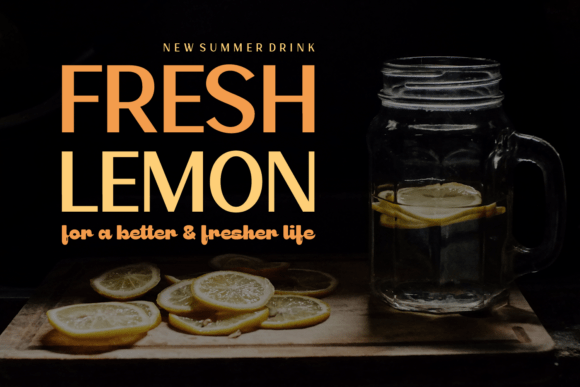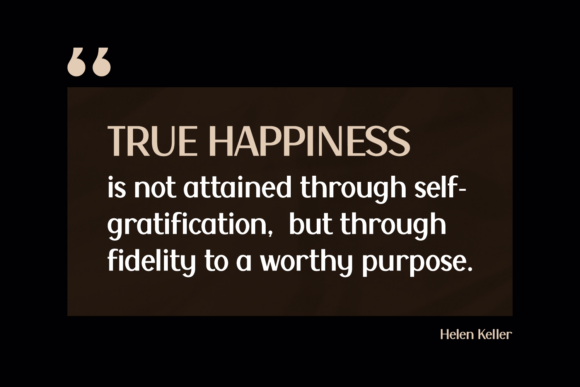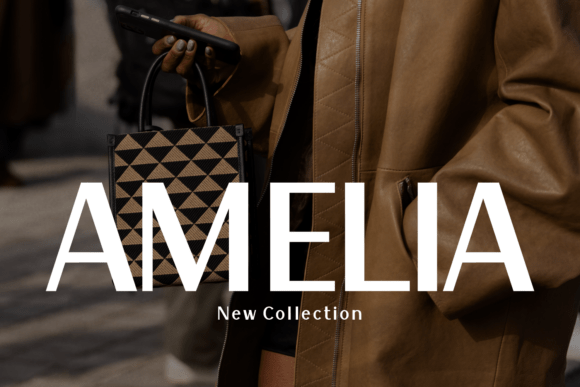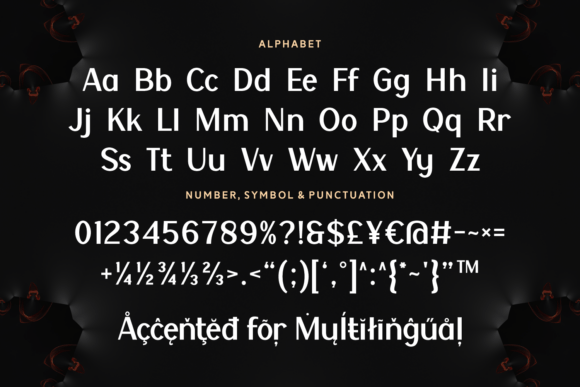
Introducing Chode Font: The Ultimate Sans Serif for Modern Design
In the world of typography, fonts play a crucial role in conveying messages, expressing emotions, and creating brand identities. For designers and crafters, finding the perfect font can be a daunting task, especially when it comes to creating visually appealing and effective designs. This is where Chode Font comes into play – a clean, modern, and versatile sans serif font that’s perfect for a wide range of applications, from branding to headlines.
A Promotional Image for “Chode”
Imagine a promotional image that showcases the beauty and simplicity of Chode Font. The image features the font itself, with a clean and minimalist design that highlights its modern and sleek aesthetic. The promotional image for “Chode” is a stunning representation of the font’s capabilities, demonstrating its flexibility and range.
What is Chode Font?
Chode Font is a sans serif font that’s designed to be highly legible, making it perfect for body text, headlines, and titles. Its clean lines, simple shapes, and geometric forms create a modern and sophisticated look that’s sure to impress. Whether you’re designing a logo, brochure, or website, Chode Font is an excellent choice.
Key Features of Chode Font
- Clean and Modern Design: Chode Font boasts a clean and modern design that’s perfect for contemporary designs.
- High Legibility: The font’s simple shapes and clear lines make it highly legible, even at small sizes.
- Versatile: Chode Font is suitable for a wide range of applications, from branding to headlines, and can be used in various design contexts.
- Geometric Forms: The font’s geometric forms create a sense of balance and harmony, making it perfect for designs that require a touch of sophistication.
Why Choose Chode Font?
With so many fonts available, why choose Chode Font? Here are a few reasons why designers and crafters love Chode:
- Easy to Read: Chode Font is designed to be easy to read, making it perfect for body text and long-form content.
- Scalable: The font’s clean design and simple shapes make it scalable, ensuring it looks great at any size.
- Unique and Memorable: Chode Font’s modern design and geometric forms create a unique and memorable look that’s sure to stand out.
- Flexible: The font can be used in various design contexts, from digital to print, and can be easily paired with other fonts.
How to Use Chode Font
Chode Font is perfect for a wide range of design applications, including:
- Branding: Use Chode Font to create a modern and sophisticated brand identity.
- Headlines: The font’s clean design and simple shapes make it perfect for headlines and titles.
- Websites: Chode Font is highly legible on digital screens, making it an excellent choice for website designs.
- Print Materials: The font can be used in various print materials, such as brochures, flyers, and posters.
In conclusion, Chode Font is a versatile and modern sans serif font that’s perfect for designers and crafters looking for a clean and sophisticated design solution. Its high legibility, simple shapes, and geometric forms make it an excellent choice for a wide range of applications, from branding to headlines. With its unique and memorable look, Chode Font is sure to elevate your designs and help you create stunning visual content.